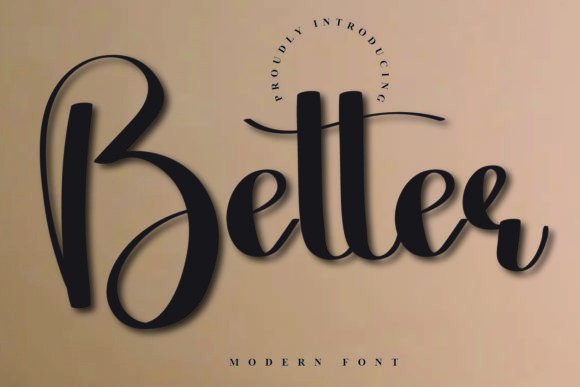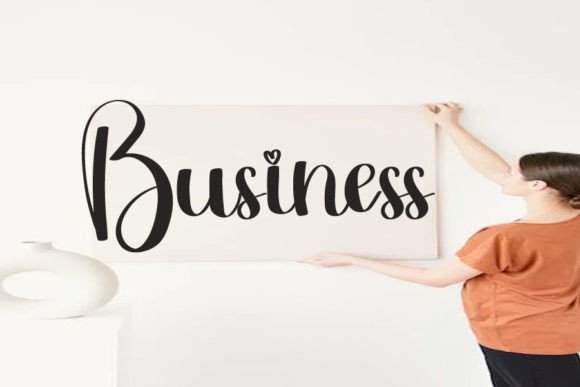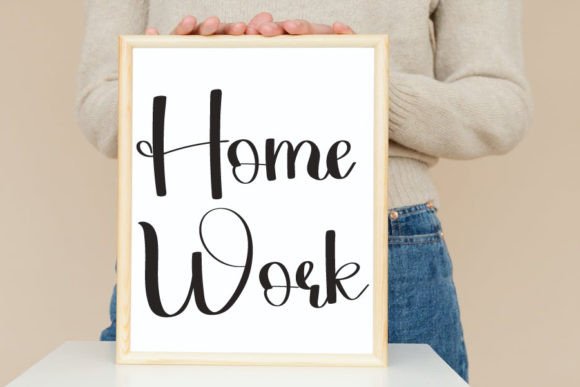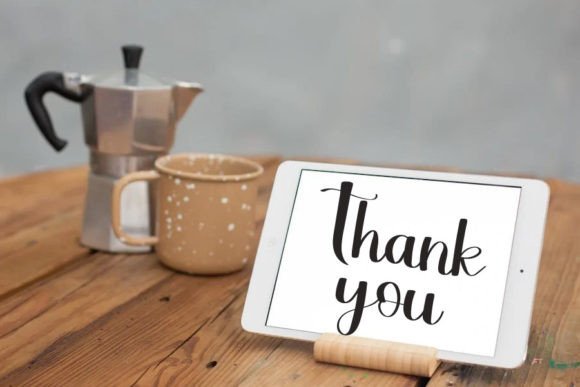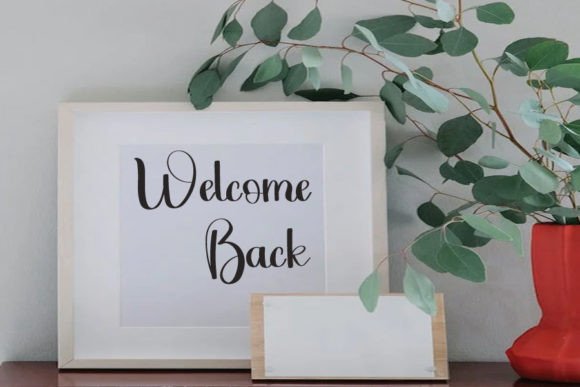
Elevate Your Designs with the Better Handwritten Font
The Better Handwritten Font is a graceful and refined typeface designed to add a personal and elegant touch to your creative projects. With its fluid strokes and stylish curves, Better strikes the perfect balance between charm and professionalism. This font is ideal for anyone looking to bring warmth, elegance, and authenticity to their designs.
Whether you’re crafting an invitation or a brand logo, Better gives your text a unique handwritten feel that resonates emotionally with your audience.
Perfect for Invitations, Cards, Branding, and More
Better is an excellent font choice for a wide variety of applications. Its refined yet casual look makes it a favorite for wedding invitations, thank-you cards, and greeting cards. Each letter is designed with care to emulate the warmth and sincerity of hand lettering, helping you create truly personal communication.
In addition, Better works beautifully in branding, logos, and social media graphics. It provides a soft, inviting visual style that stands out without overpowering the message. Whether you’re designing for personal use or for clients, this font makes your work shine.
A Versatile Typeface for Print and Digital Designs
One of the many strengths of the Better Font is its versatility. It performs equally well in both print and digital formats, maintaining its legibility and elegance regardless of size. From business cards and labels to website headers and Instagram quotes, Better adds a polished handwritten flair to every project.
To maximize its effect, consider pairing it with a clean sans-serif or serif font. This creates contrast and helps draw attention to the handwritten style without sacrificing clarity.
Elegant, Charming, and Timeless
What makes Better so appealing is its effortless blend of elegance and charm. The font’s natural flow and subtle flourishes give your text a timeless quality. Its letters feel organic and smooth, evoking handwritten notes filled with intention and care.
This makes it a great fit not only for romantic or formal projects but also for modern, minimalist designs that require a touch of personality.
Why Choose Better Handwritten Font?
Designers love Better because it:
Offers an elegant and friendly handwritten style
Works well for weddings, quotes, social posts, and branding
Supports both digital and print formats beautifully
Adds warmth, personality, and sophistication
Pairs easily with other fonts for stylish compositions
Make Every Word Count with Better Font
In summary, the Better Handwritten Font is a must-have for designers who want to create elegant, expressive, and professional-looking designs. Its timeless appeal and graceful strokes make it a reliable go-to font for personal and commercial projects alike.
Choose Better to bring heartfelt elegance and charm to every design you create.